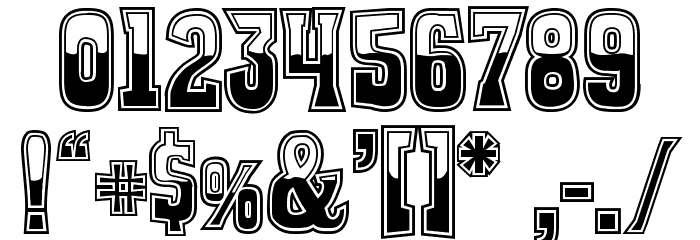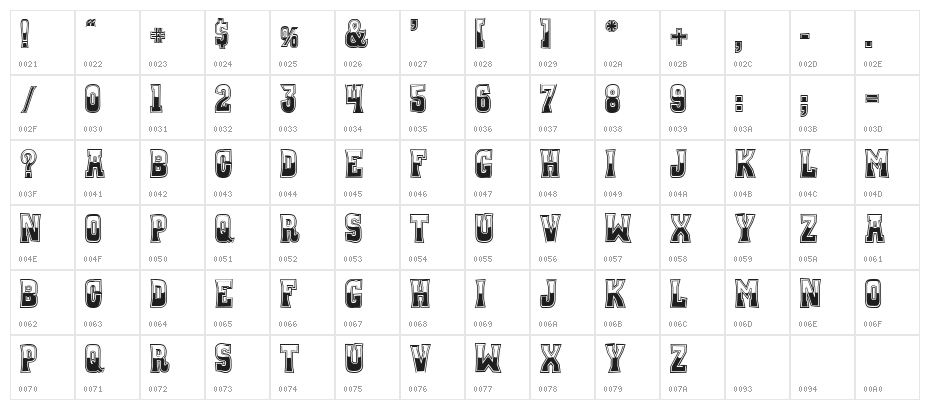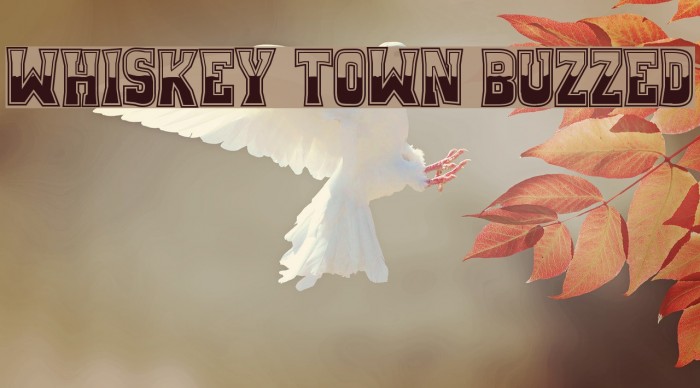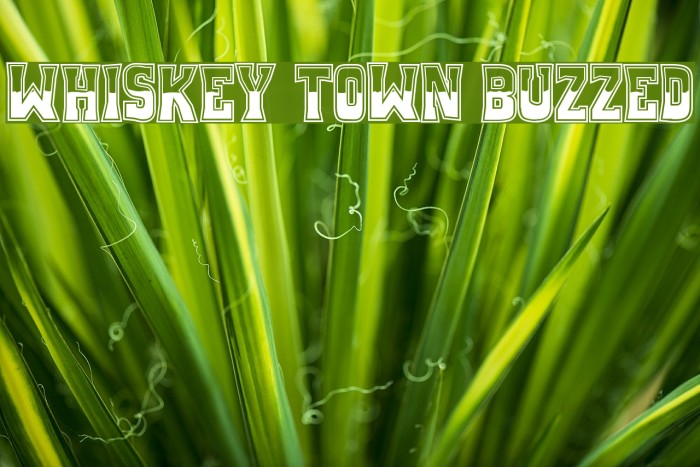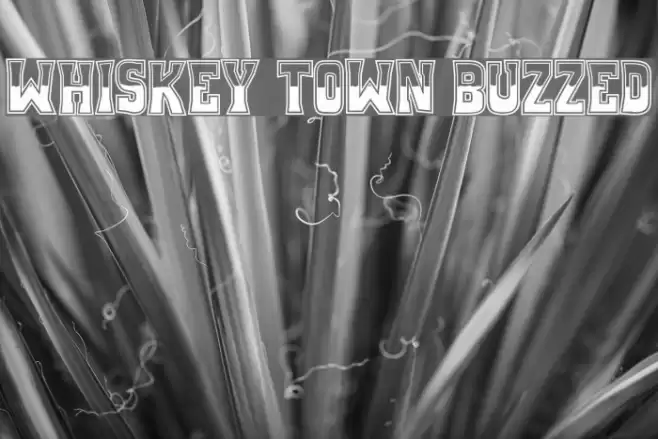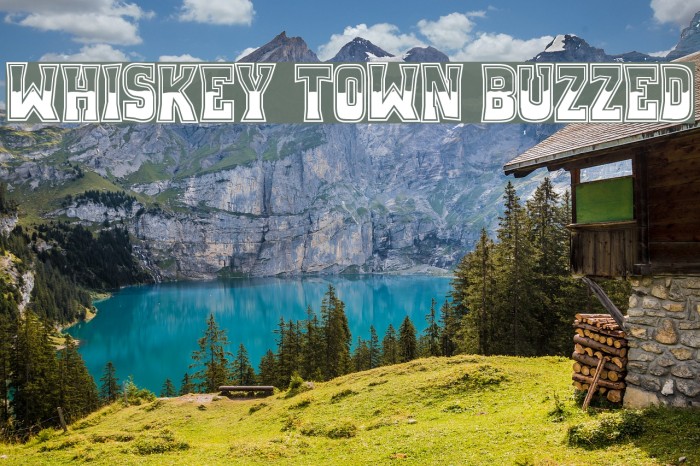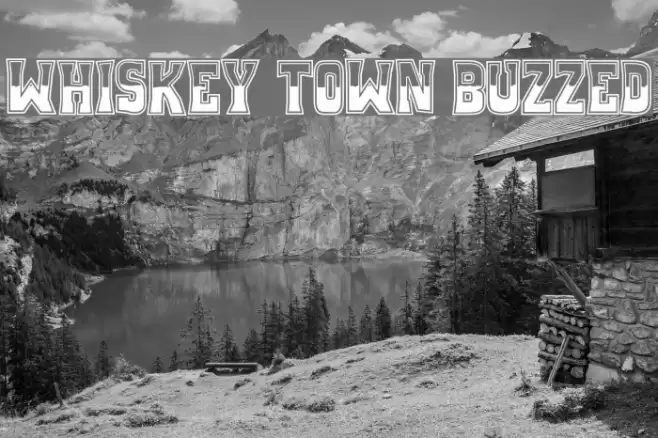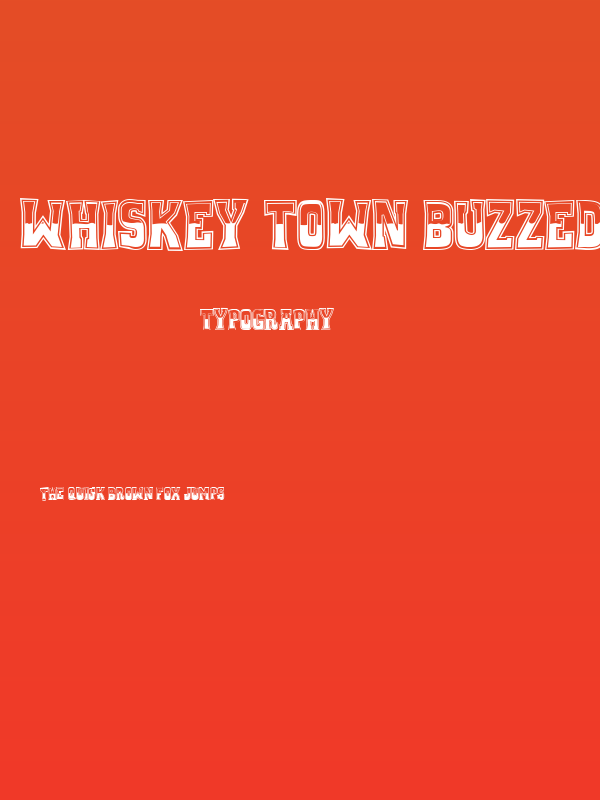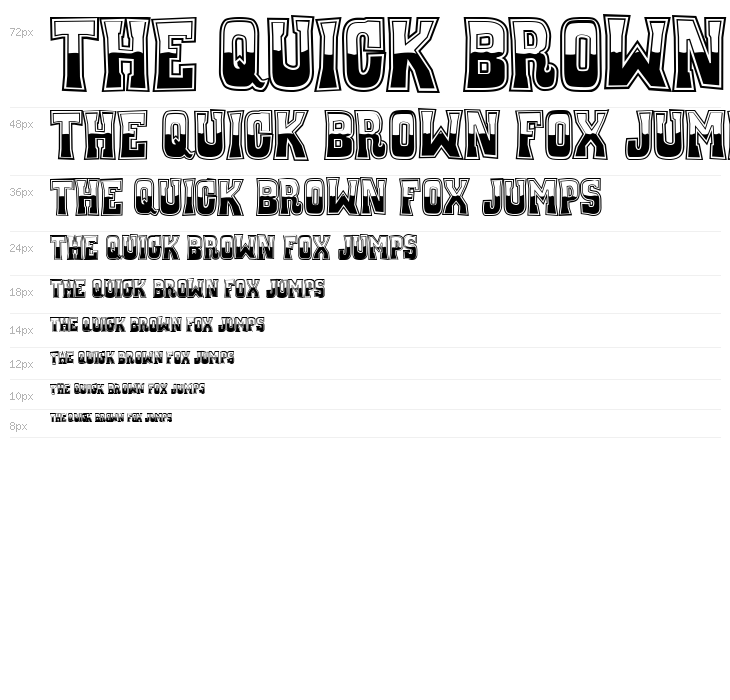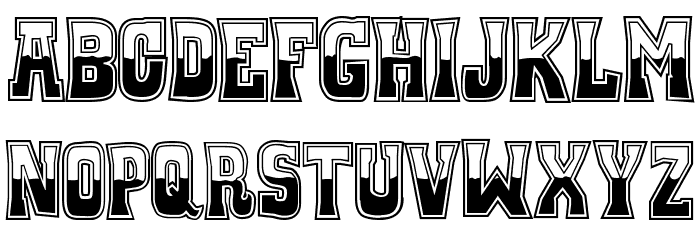
Whiskey Town Buzzed Font
Whiskey Town Buzzed Description
This font features a bold, decorative style with a strong, vintage flair. The characters are outlined with a thick black border, giving them a three-dimensional appearance. The interior of each letter is filled with a solid color, creating a striking contrast against the outline. The font has a playful and dynamic feel, reminiscent of old western or circus themes. It includes both uppercase and lowercase letters, numbers, and a variety of special characters. The design is consistent across all characters, maintaining a cohesive look that is both eye-catching and legible.